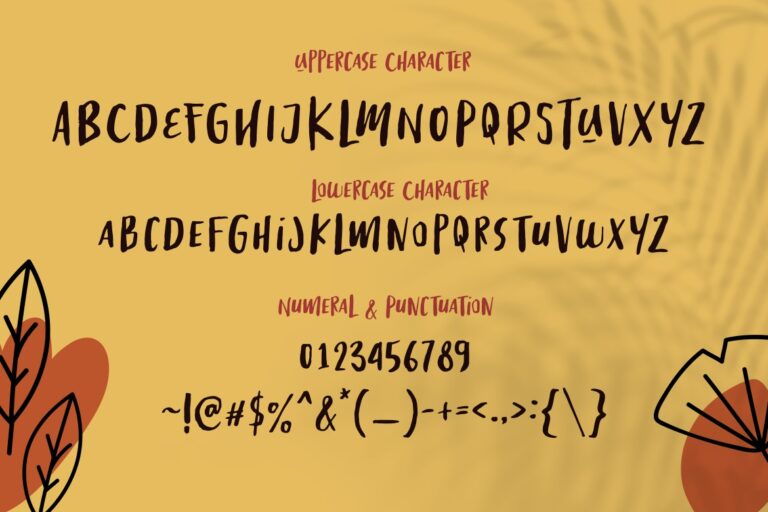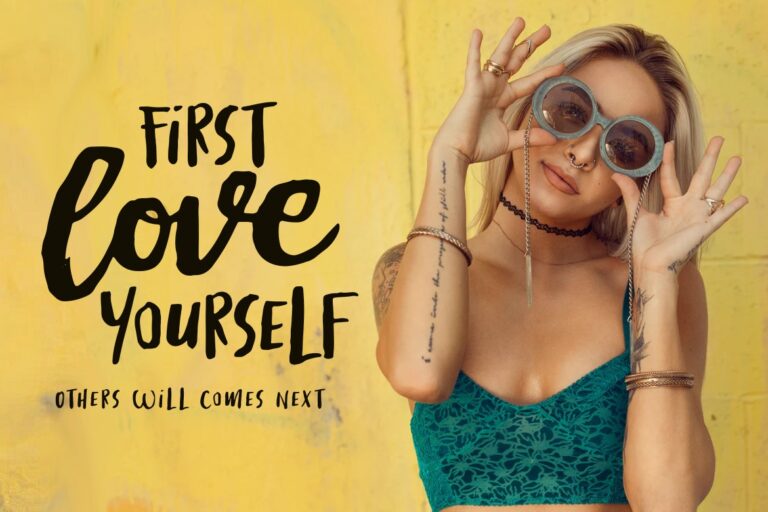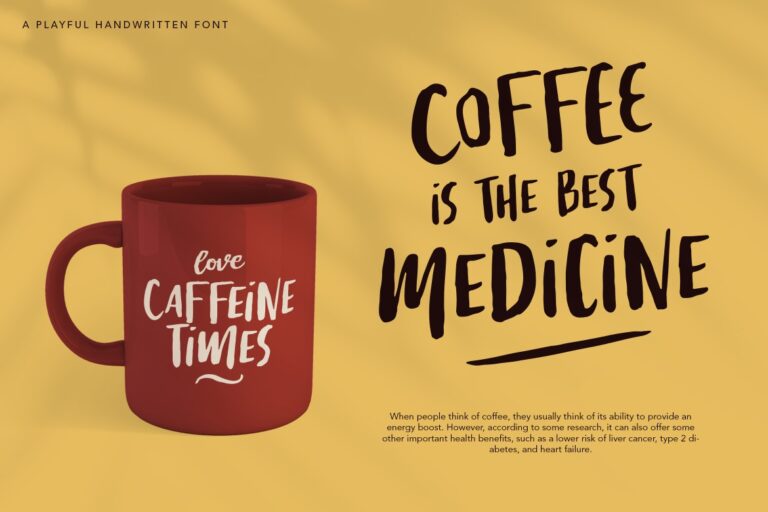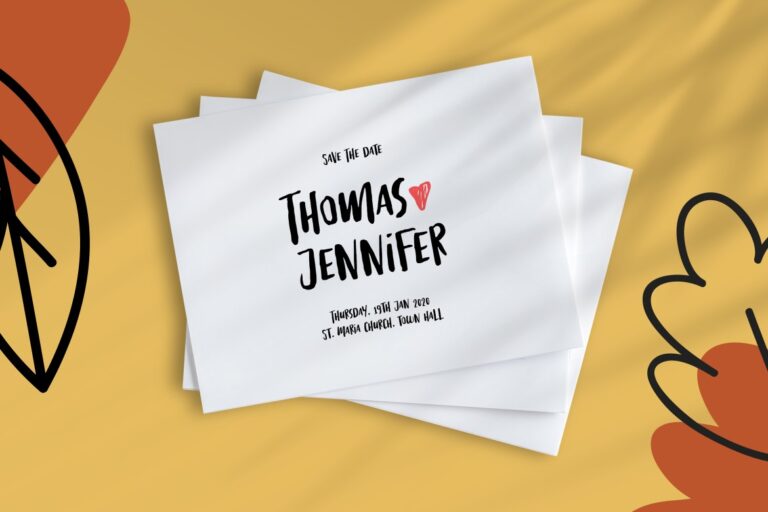
Family Photos - Playful Font
Family Photos is a natural handwritten font with a warm, casual vibe — perfect for capturing real-life moments and fun-loving messages. Its playful, imperfect strokes mimic the charm of real handwriting, making it ideal for social media posts, food menus, family photo albums, travel blogs, and cozy branding projects.
Whether you're creating heartwarming quotes, cafe menus, holiday promotions, or storytelling content, Family Photos adds a personal touch that feels genuine and inviting. Available now on PrimeFont, your go-to place for original and high-quality fonts.